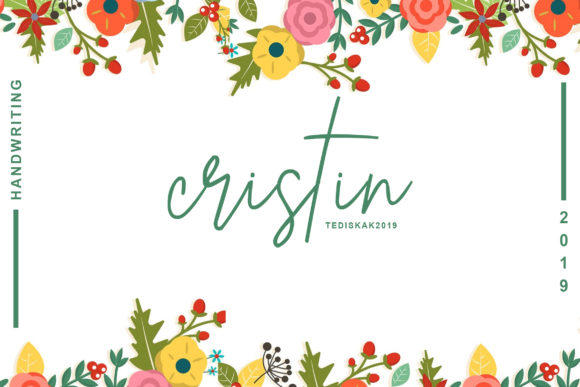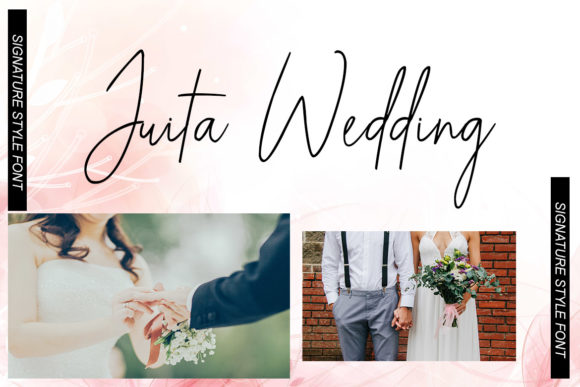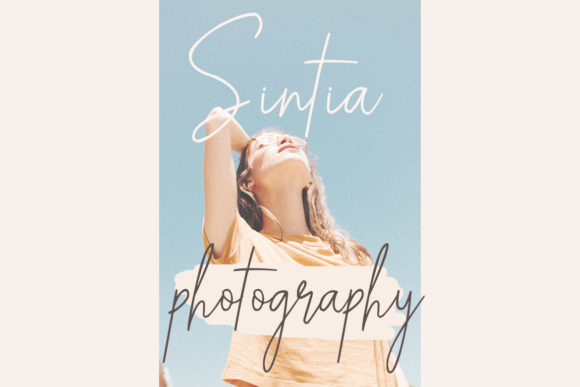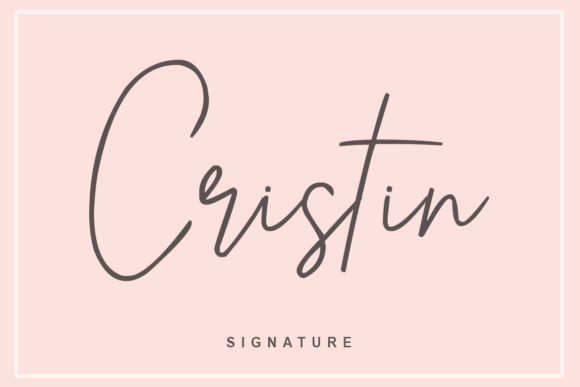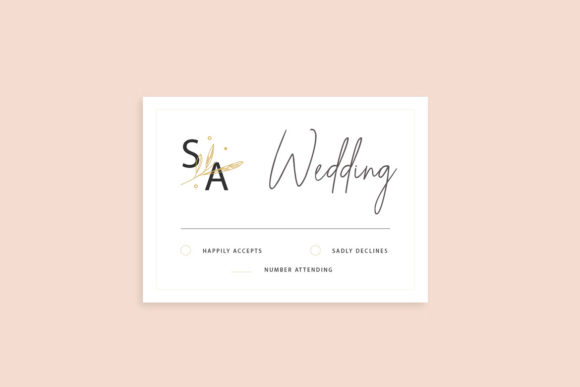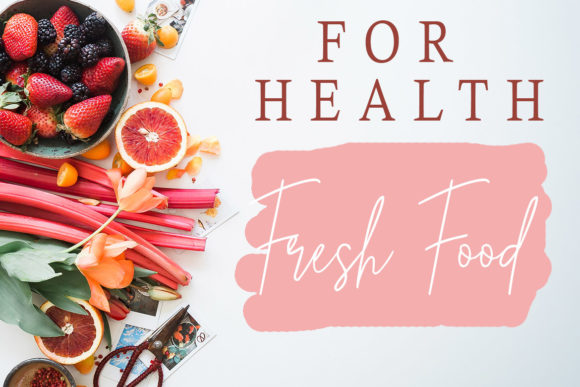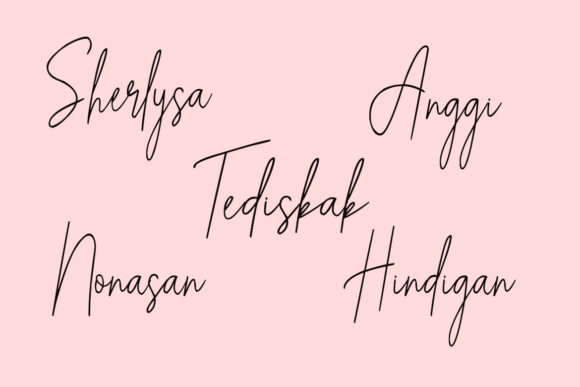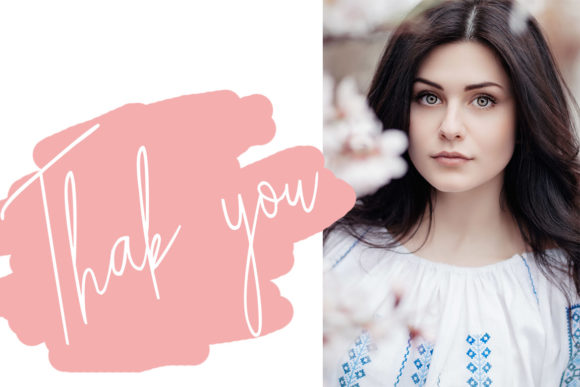
Cristin Font
About Cristin Font
Inspired by spring, Cristin is a stunning and cute handwritten font with a bold feel. Get inspired by its unique feel, and turn any design project into a stand out!